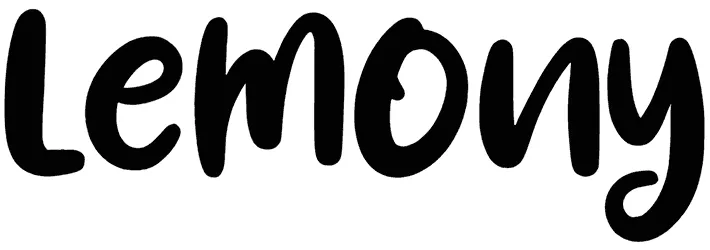
Lemony Font
Using the delightful and whimsical Lemony font, you can easily add a touch of whimsy to your designs. Fancy and handwritten, this is perfect for comics, kid-friendly literature, and anything else that calls for a bit of fun.
There is a sense of life and vitality to the letters due to their organic, free-flowing appearance. Get your hands on this cartoon font right now, and you’ll be able to blow the socks off your audience.